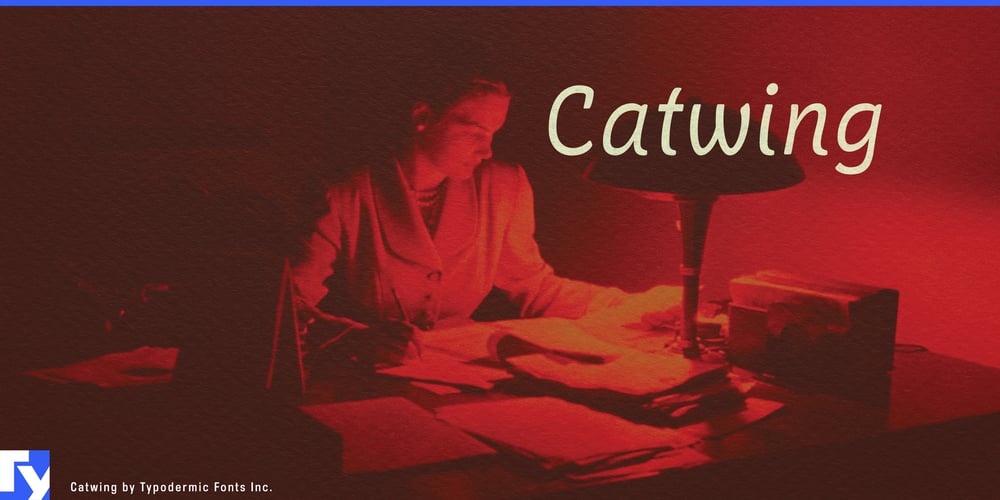
Catwing Font Family was designed by Ray Larabie and published by Typodermic. Catwing contains 2 styles and family package options. Step into the world of Catwing, a typeface that captures the essence of vintage typewriters while purring with modern sophistication. This font family doesn’t just nod to the past—it brings the tactile charm of mechanical typing into the digital age, offering designers a unique tool to craft messages that resonate with both nostalgia and contemporary flair.Catwing’s proportionally spaced letters set it apart from typical typewriter fonts, striking a balance between retro authenticity and modern readability. Its versatility shines through in all-caps settings, creating headlines and titles that command attention without shouting, much like the authoritative clack of a typewriter carriage return. The Regular style of Catwing offers a crisp, clean aesthetic that’s perfect for projects requiring a touch of understated elegance. But for those seeking to dial up the vintage vibe, Catwing Fuzz steps in with its textured characters that evoke the slightly uneven imprint of well-worn typewriter keys. This added layer of authenticity transforms digital text into something that feels tangibly crafted.Catwing Fuzz takes the illusion further with its intelligent use of OpenType features. Custom letter pairs are automatically swapped out, mimicking the subtle imperfections of mechanical typing. This attention to detail creates a truly convincing typewritten effect, perfect for designs that aim to transport viewers to a bygone era of clickety-clack communication. But Catwing isn’t content to be pigeonholed as a mere novelty font. Its extensive language support makes it a global communicator, fluent in a vast array of Latin-based European writing systems. From the fjords of Norway to the plains of Hungary, Catwing speaks with a voice that’s both familiar and fresh.Choose Catwing when you need typography that doesn’t just reference history but brings it to life. It’s ideal for vintage-inspired branding, retro-themed publications, or any project that calls for a touch of analog charm in our digital world. With Catwing, every character tells a story, every word an echo of the past resonating with contemporary relevance.In a landscape of sleek, minimalist fonts, Catwing stands out as a typeface with character—literally. It’s more than just a tool for writing; it’s a time machine for your designs, ready to transport your audience to an era when every letter was a deliberate act, and every word carried the weight of mechanical precision.